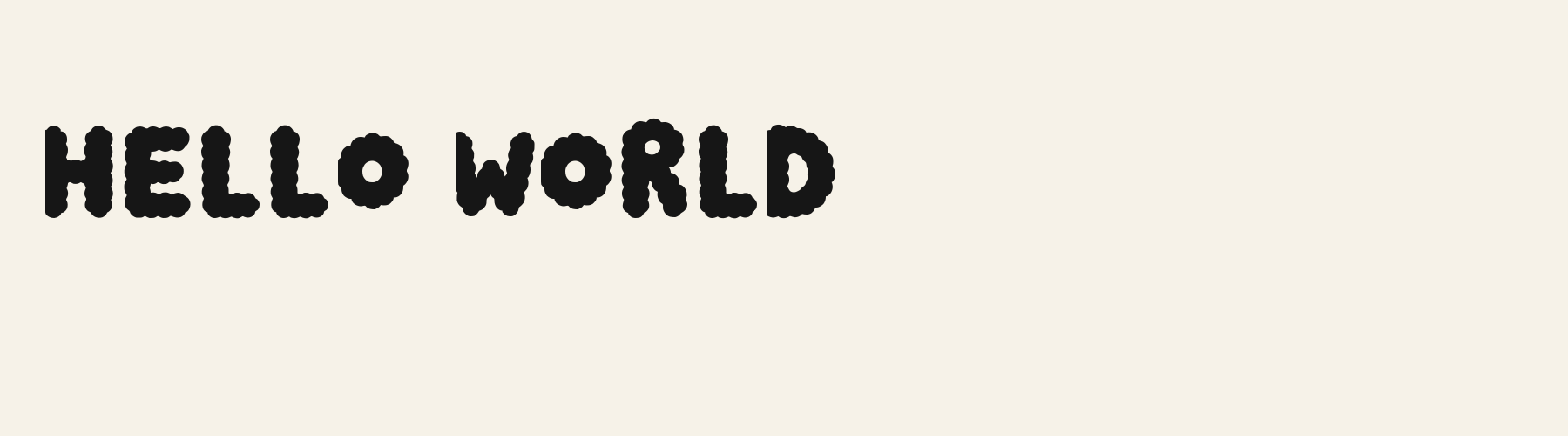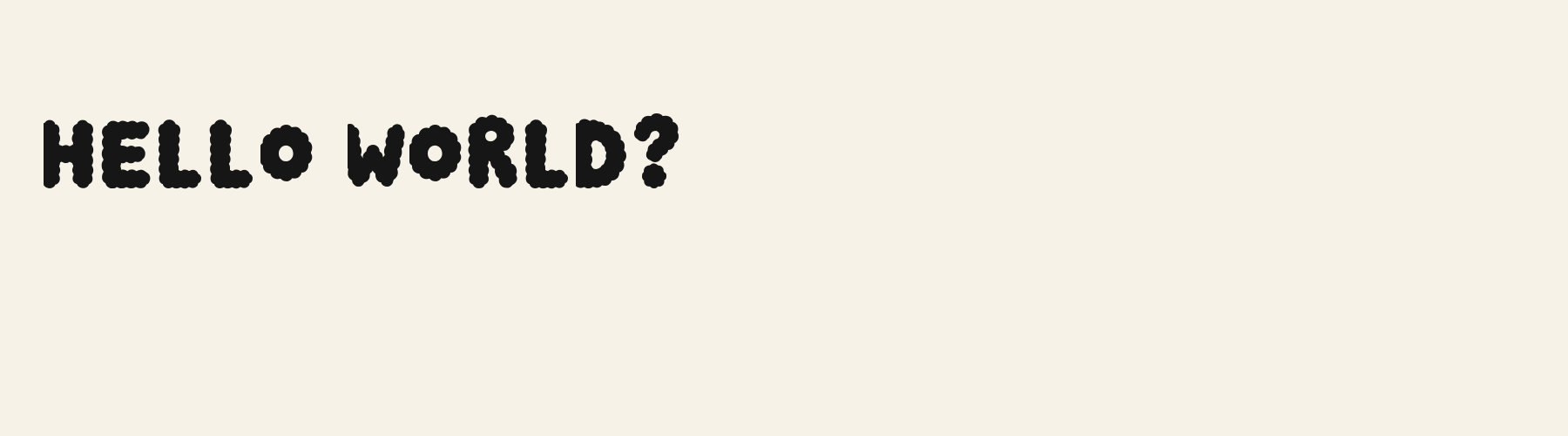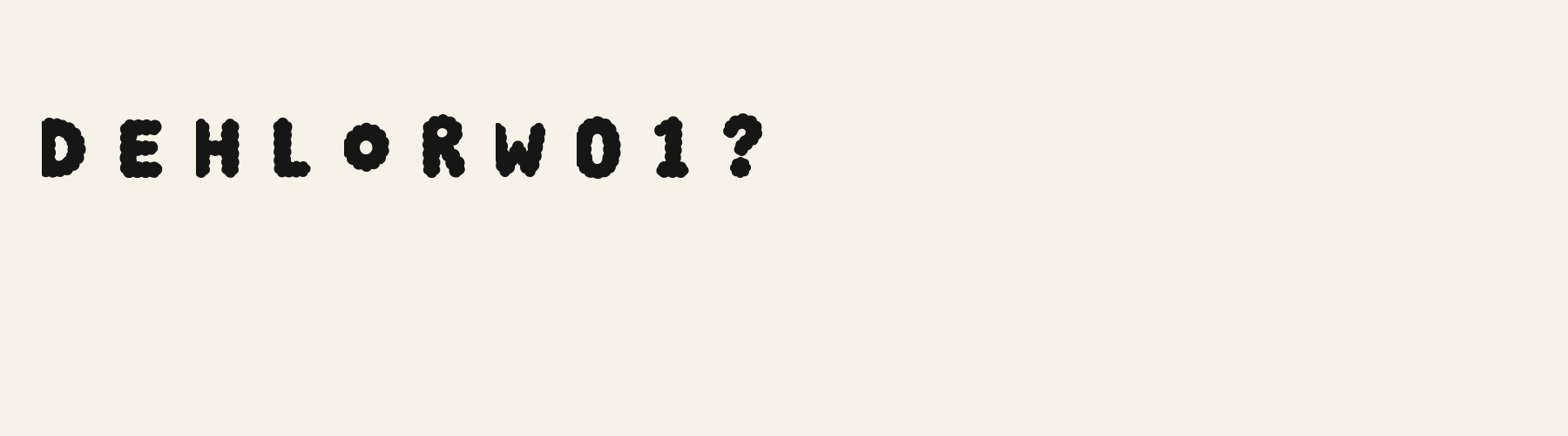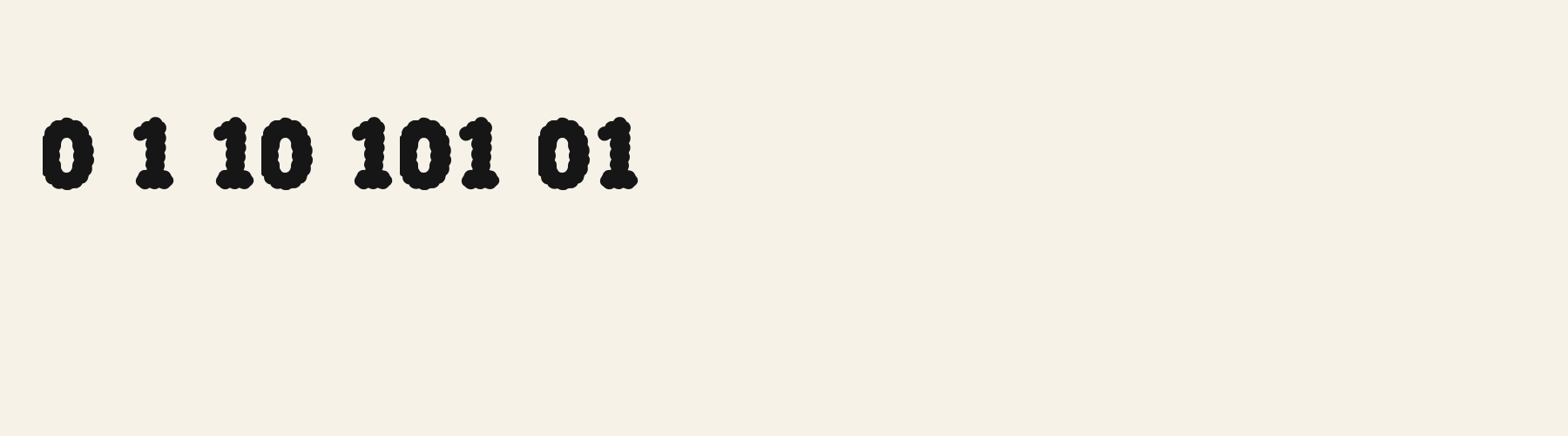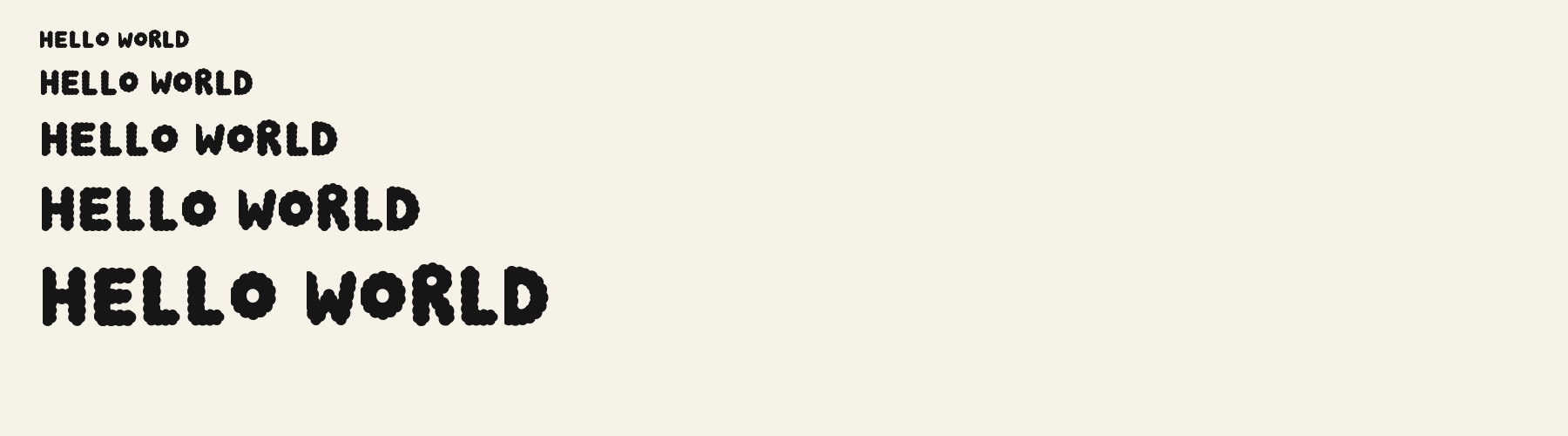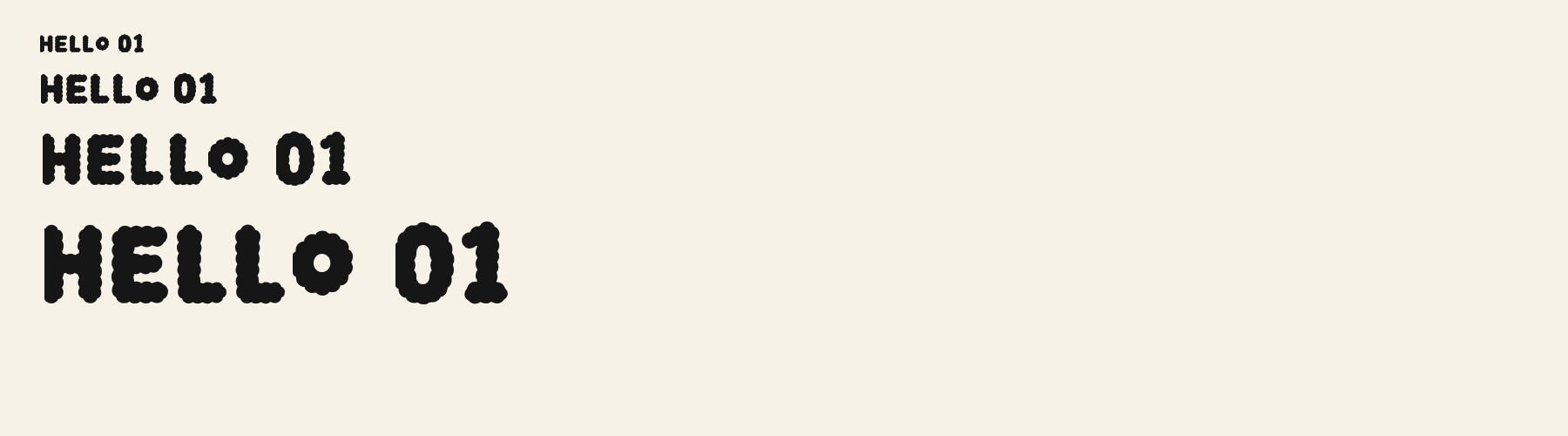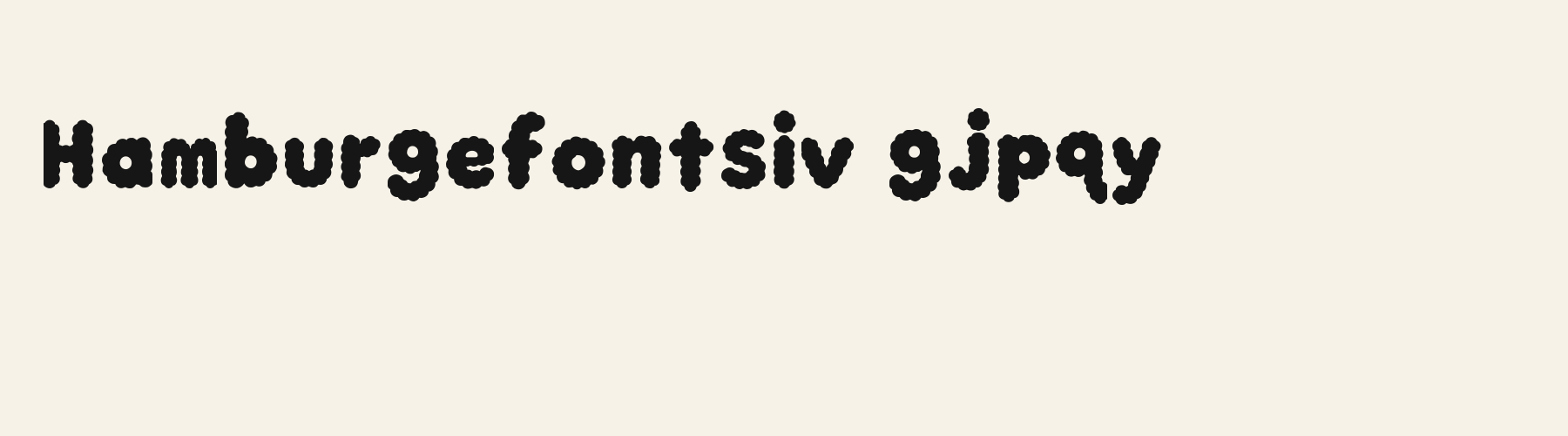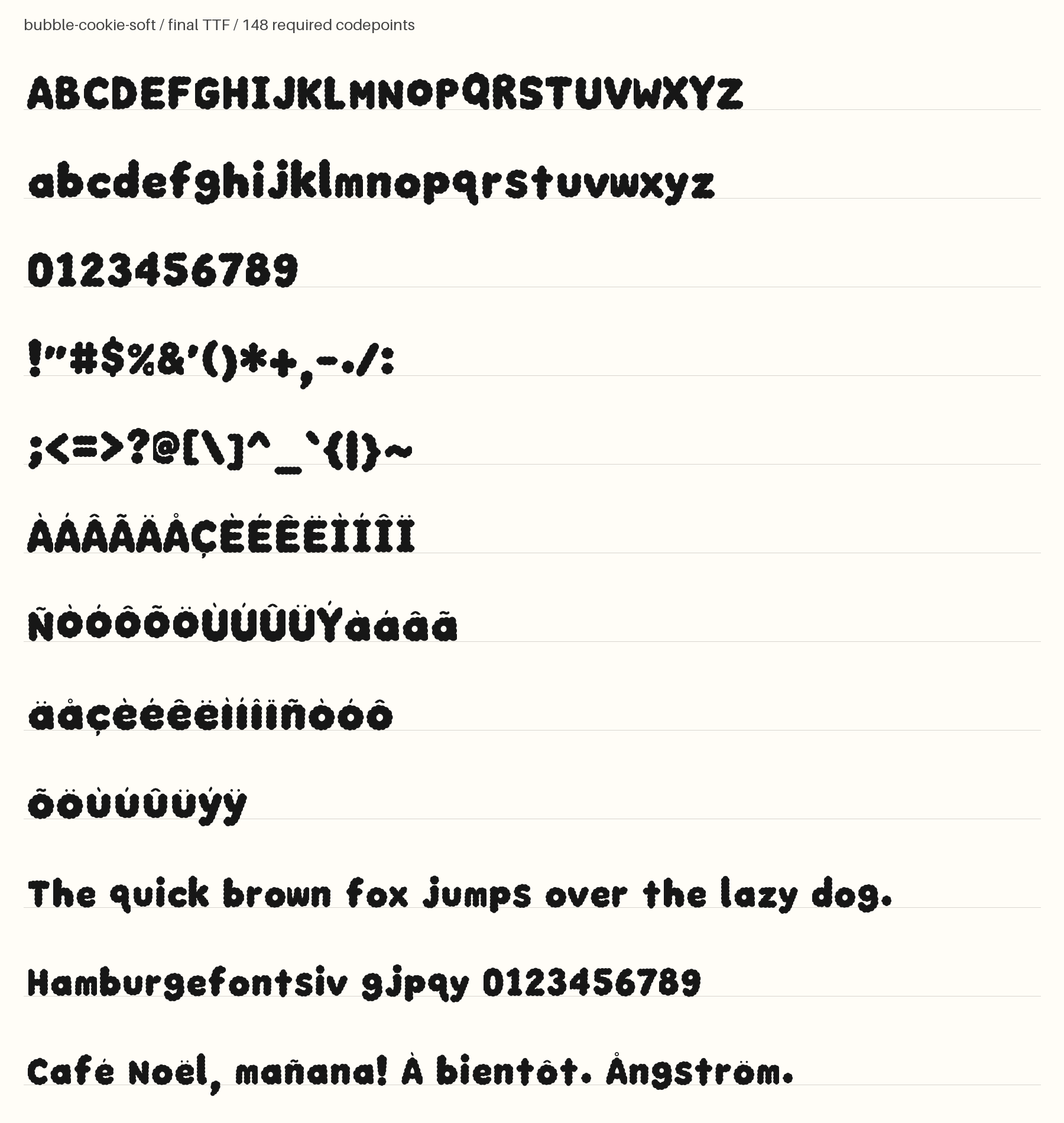
Cute Storybook Round
Bubble Cookie Soft is a children’s menus, party packaging and cheerful classroom headings. thick soft strokes, generous inner white space and low contrast throughout. Best for children’s menus, party packaging and cheerful classroom headings.
Includes all 95 printable Basic Latin characters and 148 glyphs in total.
Verified language coverage: English (Basic Latin)